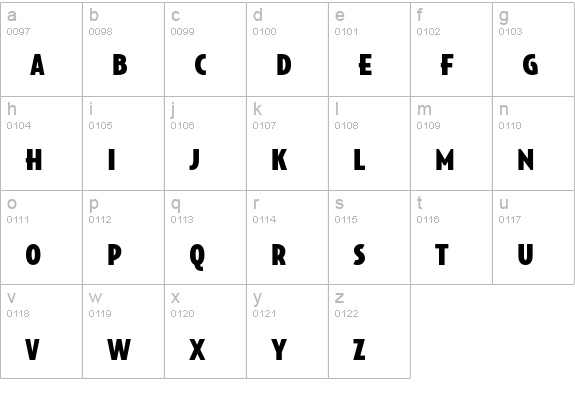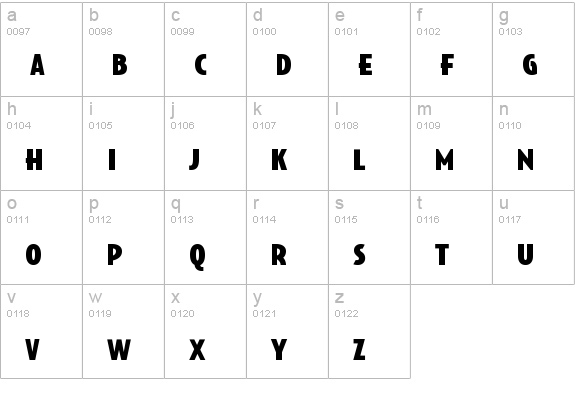
BodegaSans-BlackSmallcaps is a bold and striking font that exudes sophistication and modernity. Its sleek design and small caps style make it perfect for creating eye-catching headers, titles, and branding materials. This font commands attention and adds a touch of elegance to any project. The best part? BodegaSans-BlackSmallcaps is available for free download at FontsMarket.com. Now you can elevate your designs without breaking the bank. Don't miss out on this fantastic opportunity to enhance your creative projects with this stunning typeface. Download BodegaSans-BlackSmallcaps today and make a bold statement with your typography.